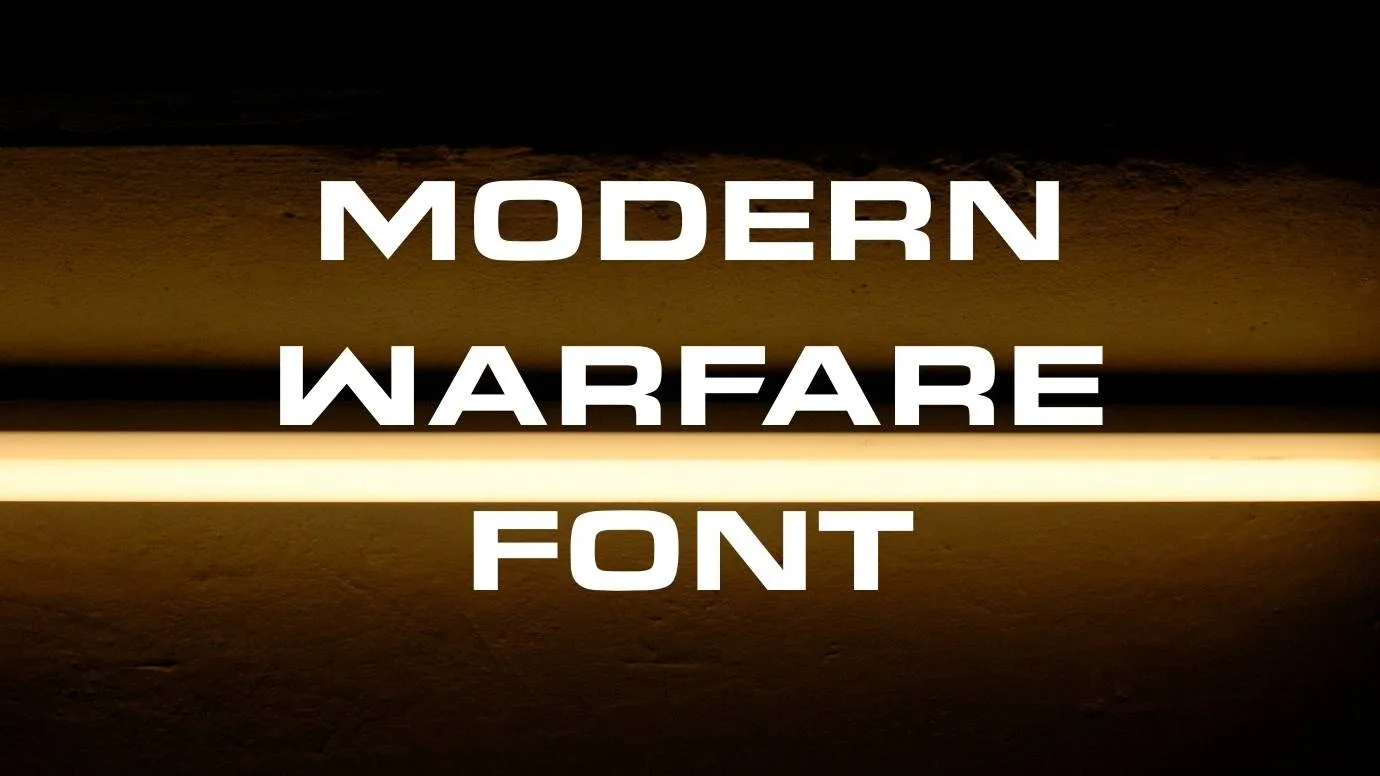
Modern Warfare Font Family has bold and soft look characters that have a unique appearance. This eye-catching typeface was designed by FontStudio LAB. It consists of more than 103 characters along with glyphs, numbers, and lowercase letters.
This interesting font has a number of unique features. This bold and beautiful sans serif typeface is good for text chat style and text effect purposes. A lot of designers can use it for advanced projects by pairing it with Italico Font which is the most similar font to this typeface.